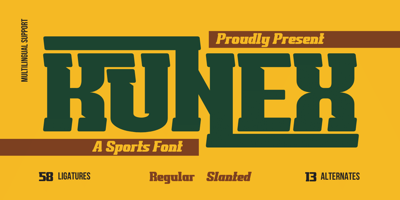
Kunex Font Family was designed by Rozikan and published by Twinletter. Kunex contains 2 styles and family package options. The display font Kunex was created for outdoor sporting events and many other contemporary sports. A manly aesthetic with a sense of strength and speed may be brought to life with this modern slab shape and graceful tilt. It is perfect for contemporary logos and monograms for vehicles, sports, and other occasions. Kunex has a distinctive vitality in its concise form that, when written, has a rough and bold impression. At the same time, the typeface has been developed to adhere to precise letter-design principles to have a more natural feel than digital textures.What’s Included :- File font- All glyphs Iso Latin 1- Alternate, Ligature- Simple installations- We highly recommend using a program that supports OpenType features and Glyphs panels like many Adobe apps and Corel Draw, so you can see and access all Glyph variations.- PUA Encoded Characters – Fully accessible without additional design software.- Fonts include Multilingual support